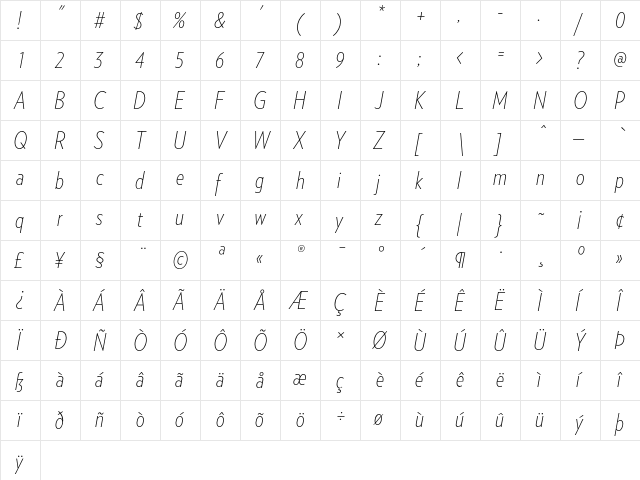
Verlag Condensed Extra Light Italic Font Preview
| Foundry | Hoefler & Frere-Jones |
| Designer | Hoefler & Frere-Jones |
Design Context for Verlag Condensed Typeface
Verlag Condensed offers clean, dependable letterforms without strong stylistic allegiance, making it a practical choice for designers who need flexibility. The dynamic lean of this cut emphasises speed and emphasis in any layout. The delicate stroke weight brings airiness and refinement to layouts. Its narrow stance lets it pack a punch even in space-constrained designs.
Pro Tip: Try Verlag Condensed for annotation and caption copy alongside an upright companion — the contrast in angle creates a dynamic but ordered typographic system.